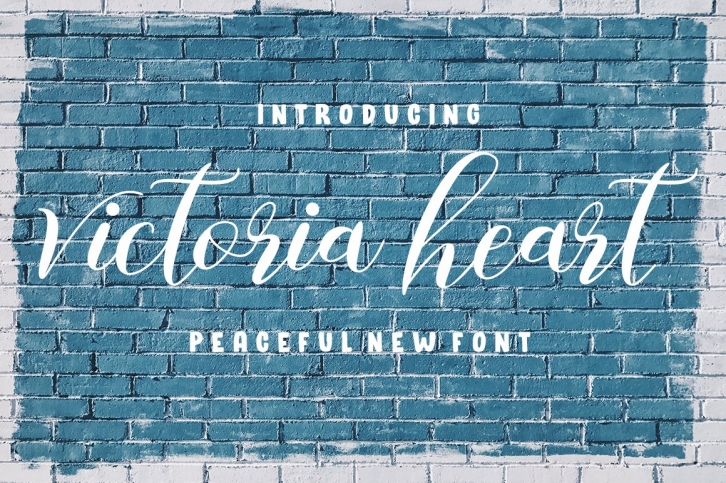
Victoria Heart is a gorgeous font that was realeased on June 20, 2020. The font can be used in many style contexts and design environments. Perfect for invitations, magazines, websites, logos, and more! It was designed by Gam Studio and the file size is 7.50 MB. Thanks for checking out this font!